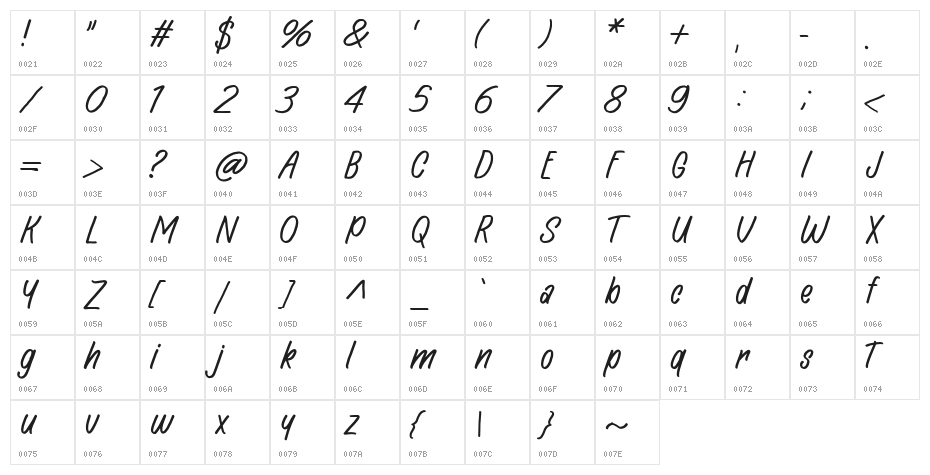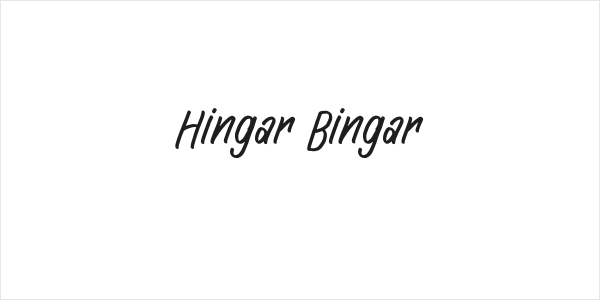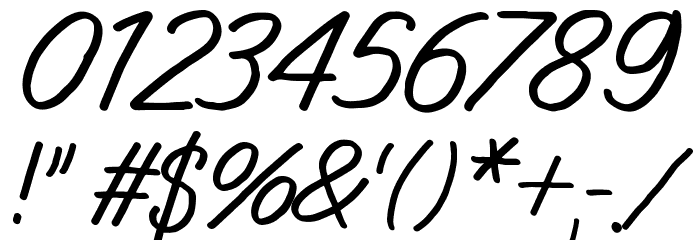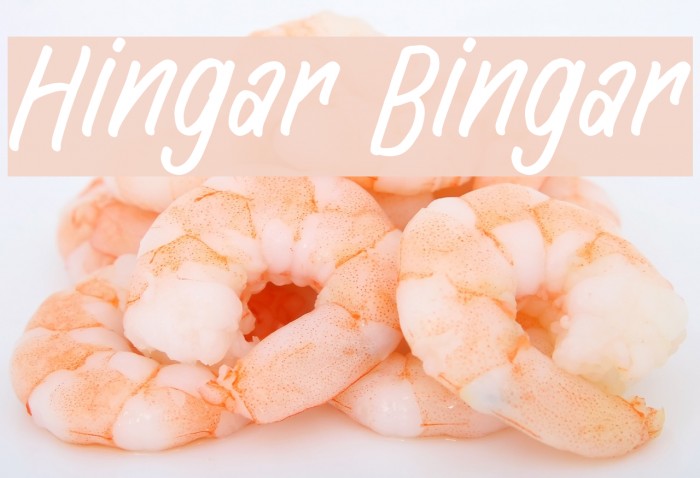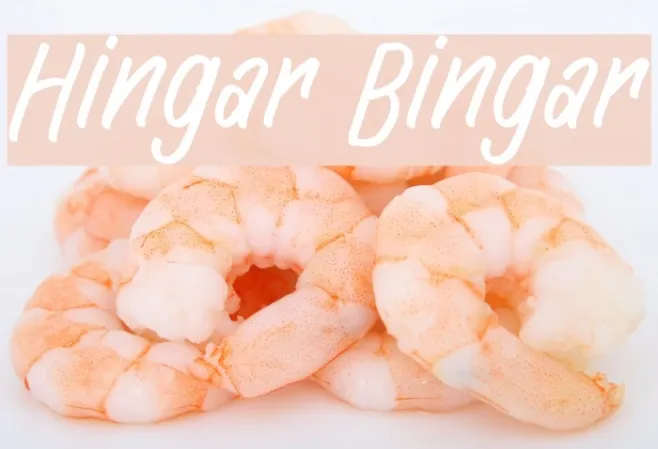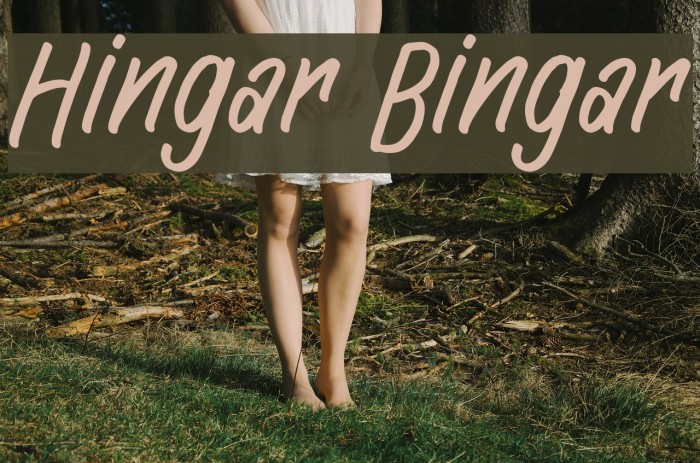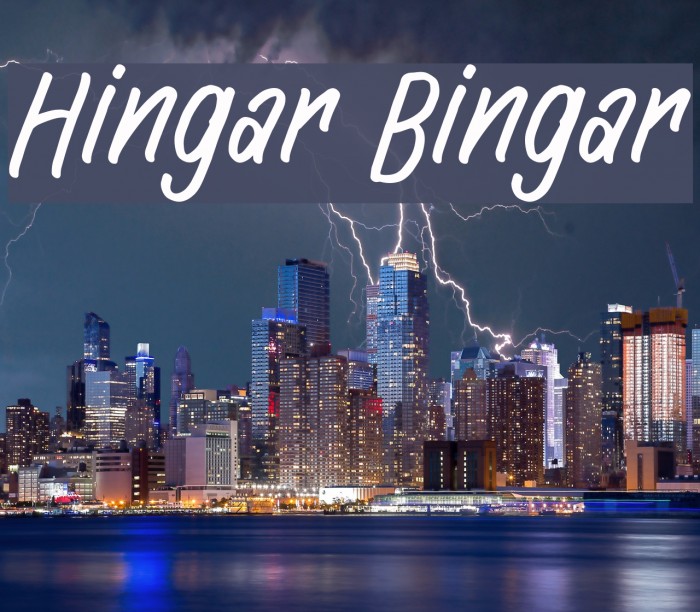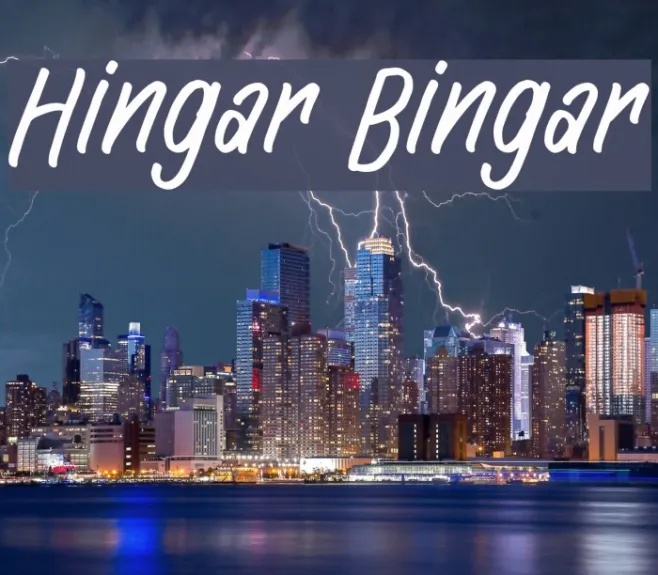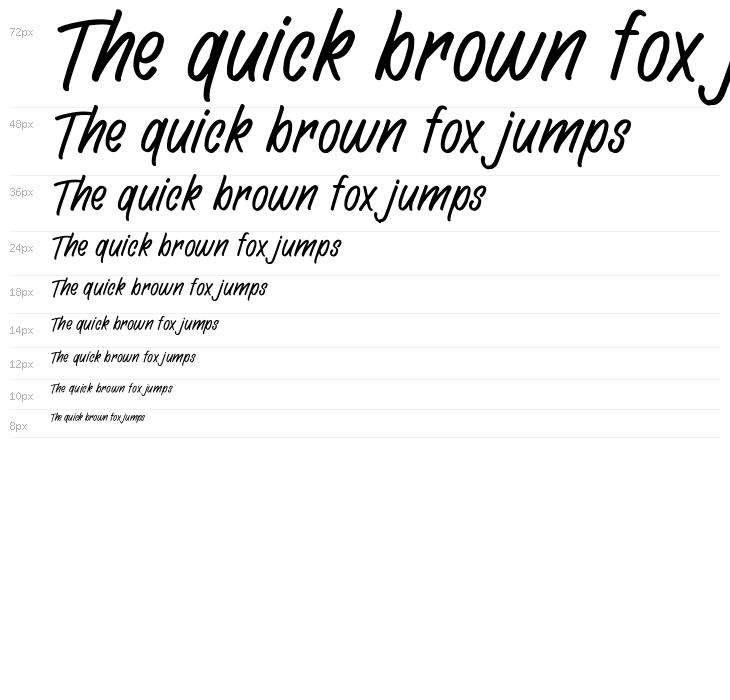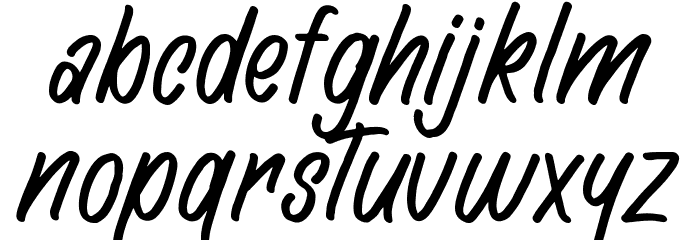
Hingar Bingar Font
Hingar Bingar Description
This font features a lively and energetic script style, characterized by its fluid and dynamic strokes. The letters are slightly slanted, giving a sense of motion and spontaneity. Each character is crafted with a consistent stroke width, maintaining a harmonious flow throughout the alphabet. The uppercase letters are bold and prominent, while the lowercase letters are more compact and rounded, adding a playful touch. The numerals are well-balanced and align seamlessly with the overall style. Special characters are included, maintaining the same energetic flair. This font exudes a sense of fun and creativity, making it ideal for projects that require a personal and informal touch.
| Proposed Projects | Ideal for greeting cards, invitations, playful branding, and creative posters. |